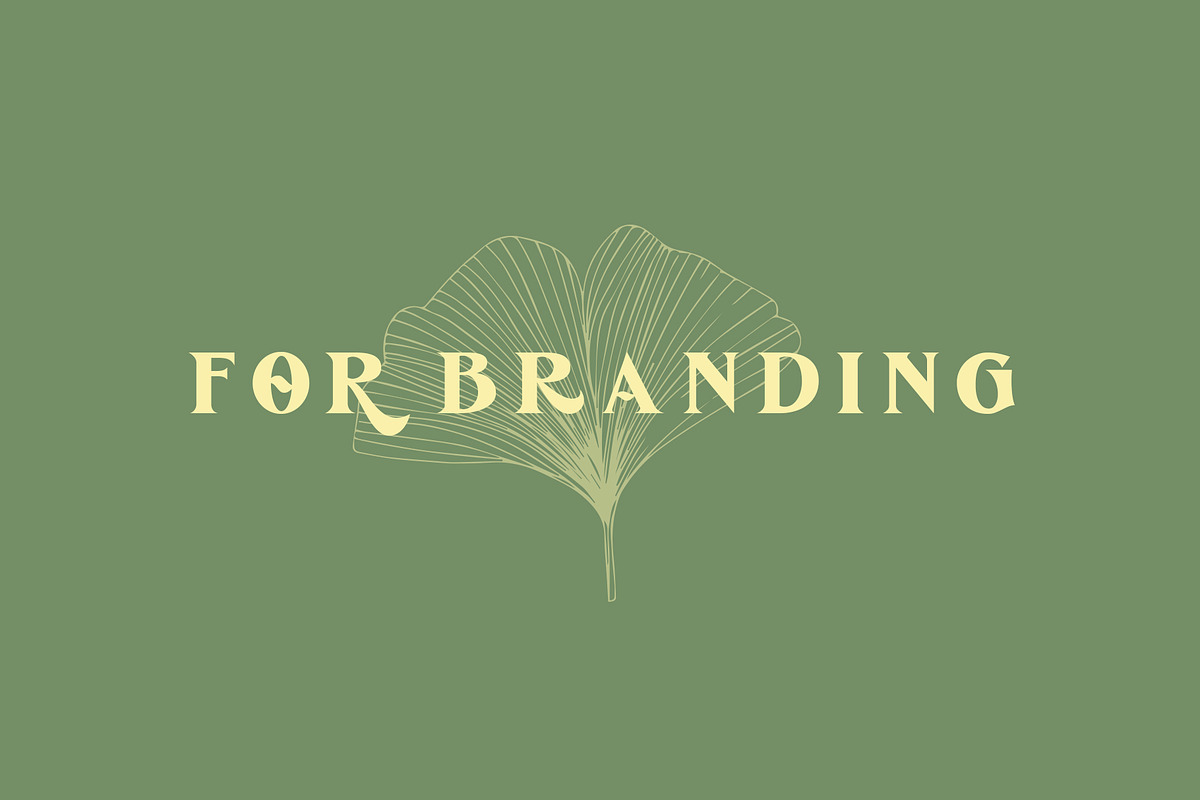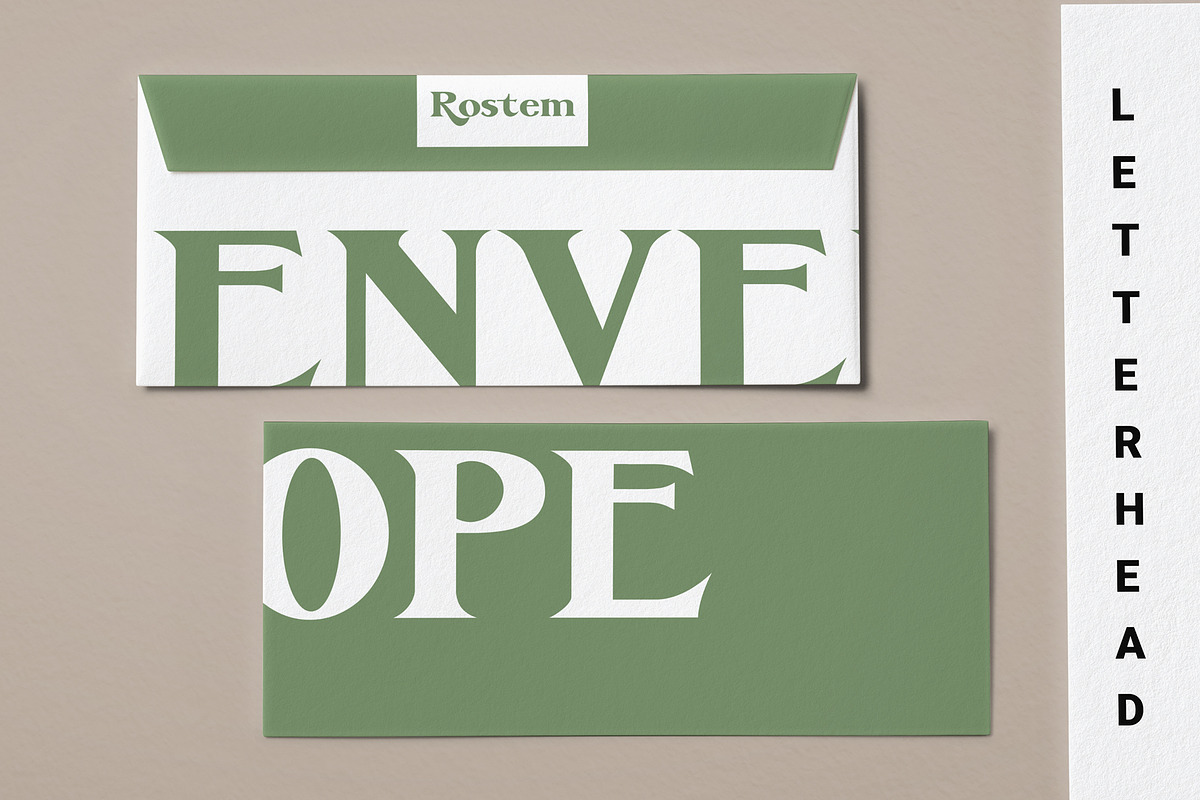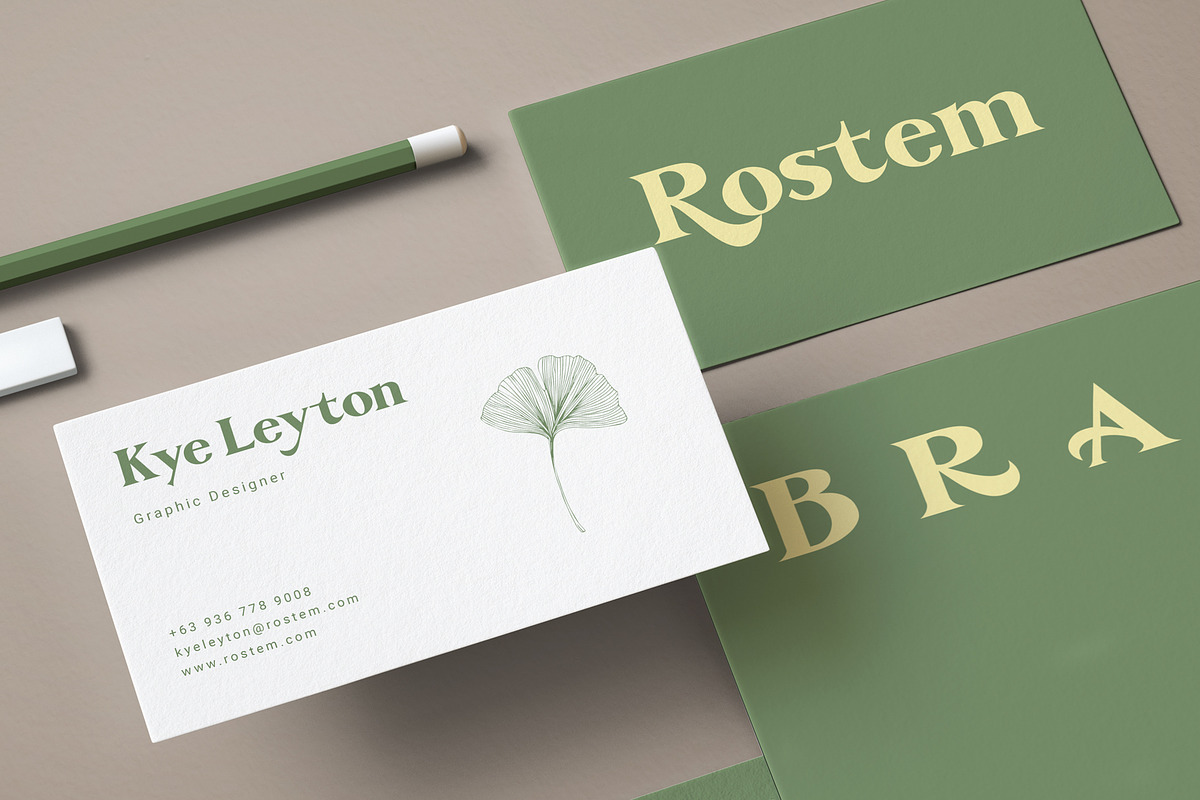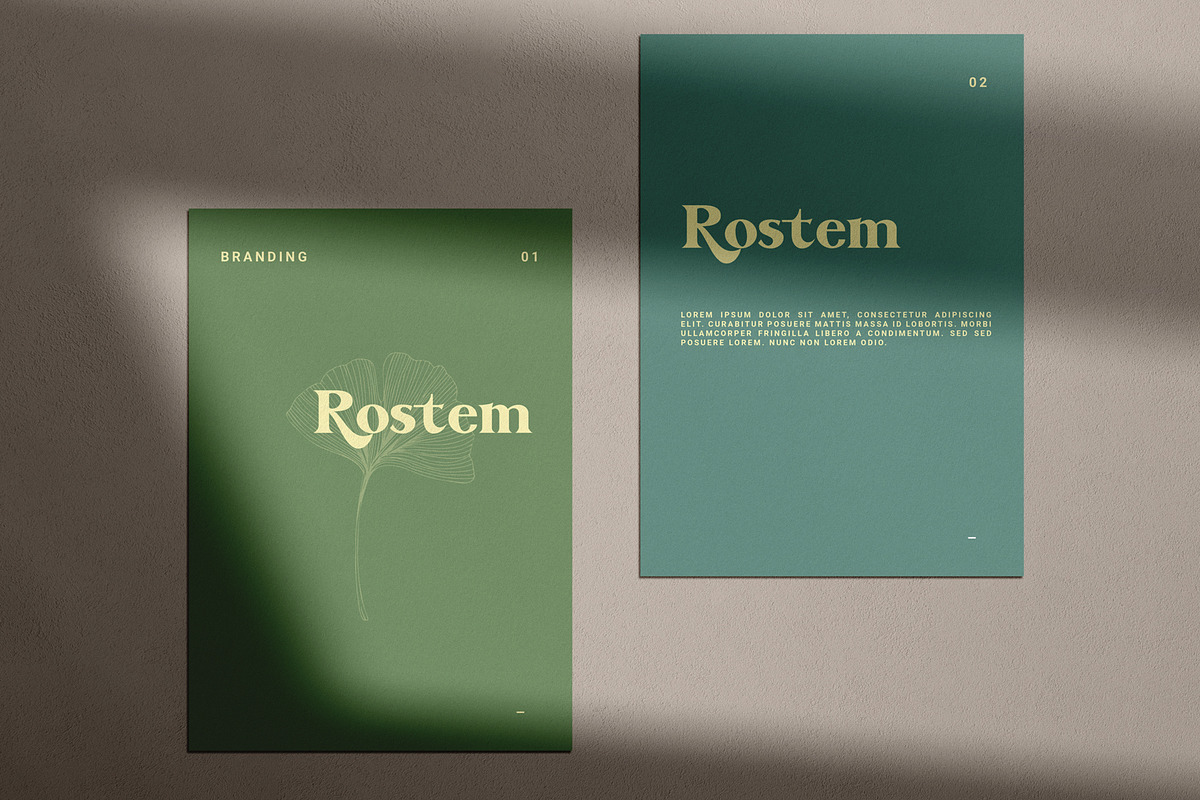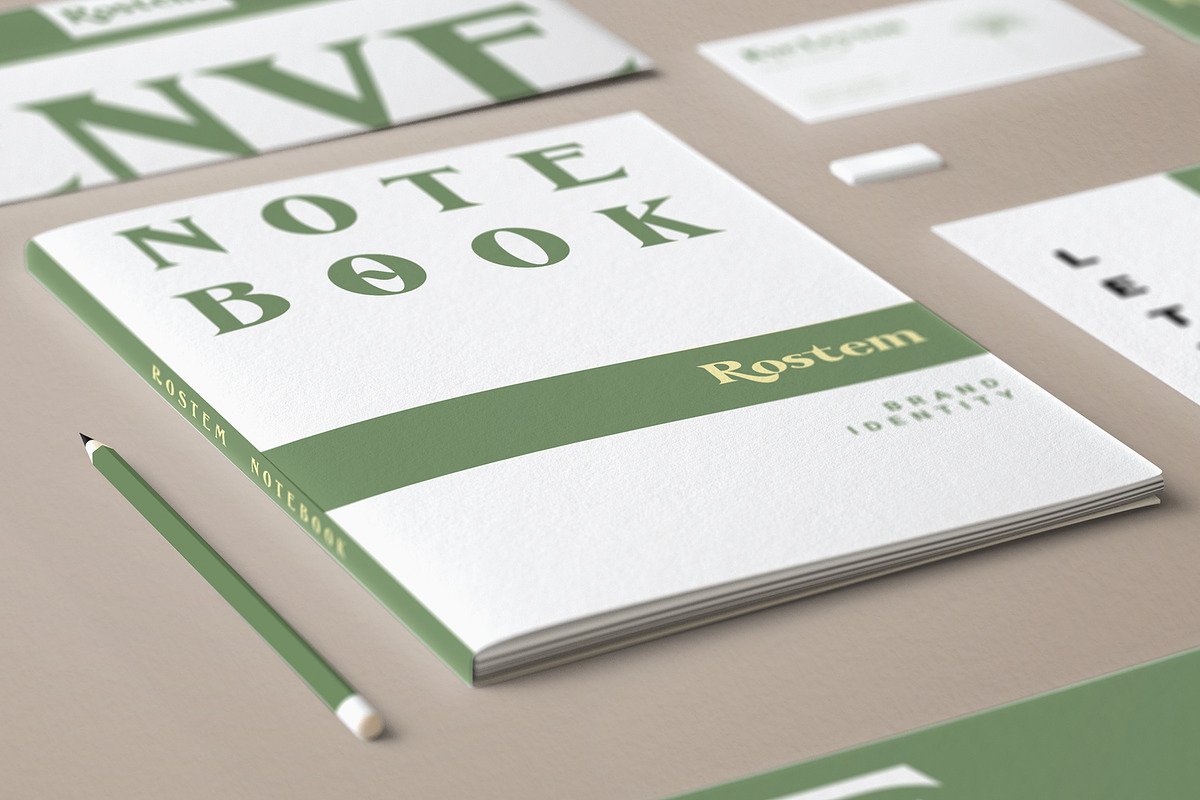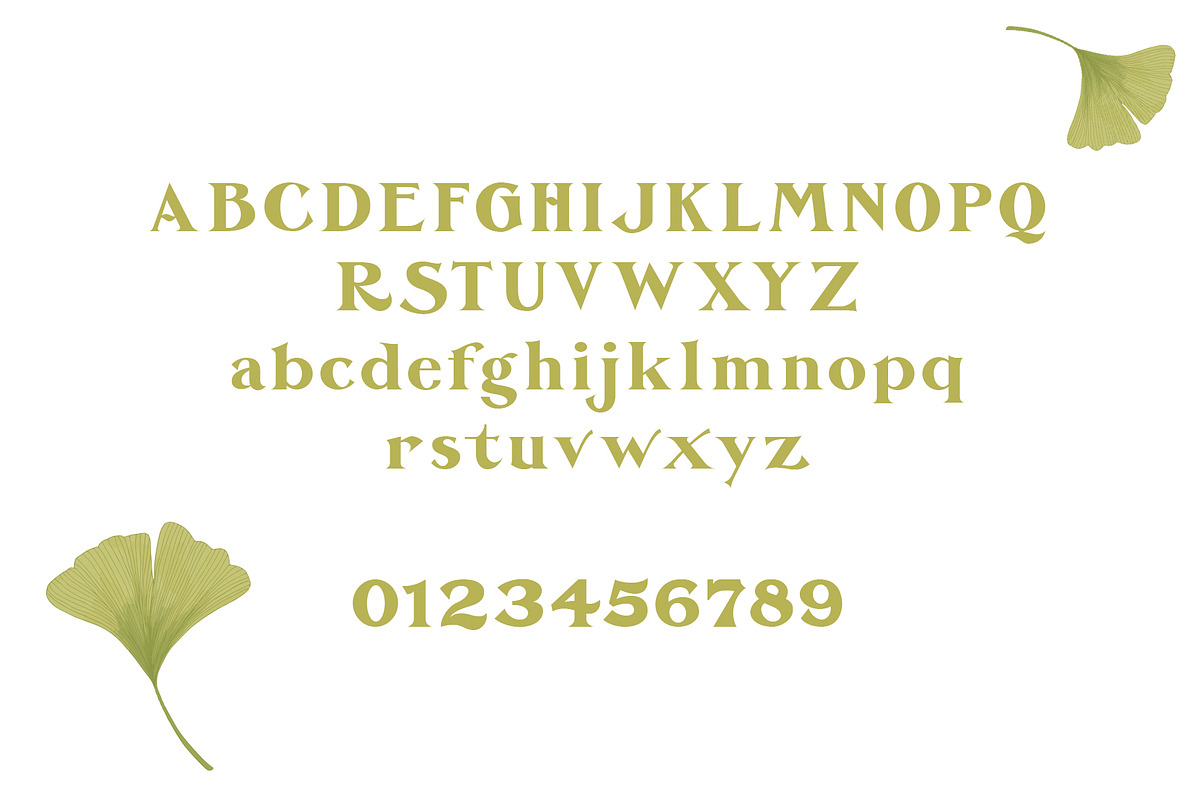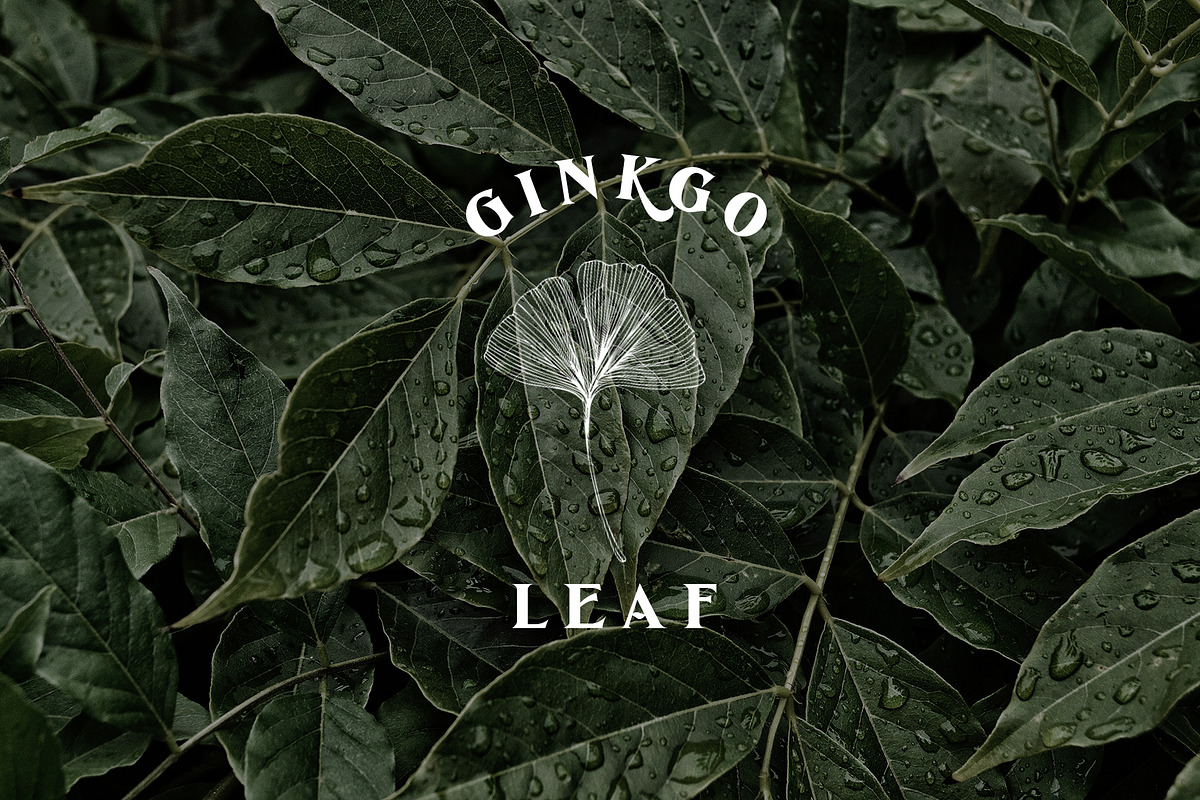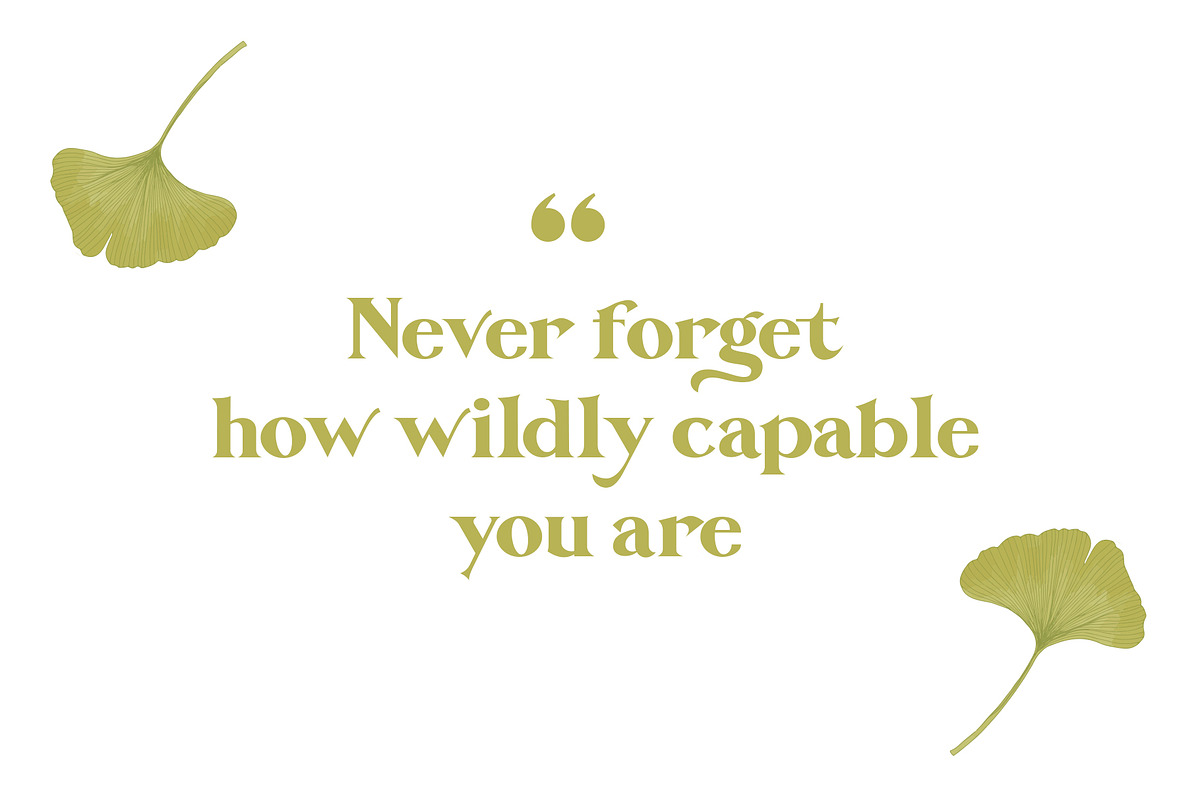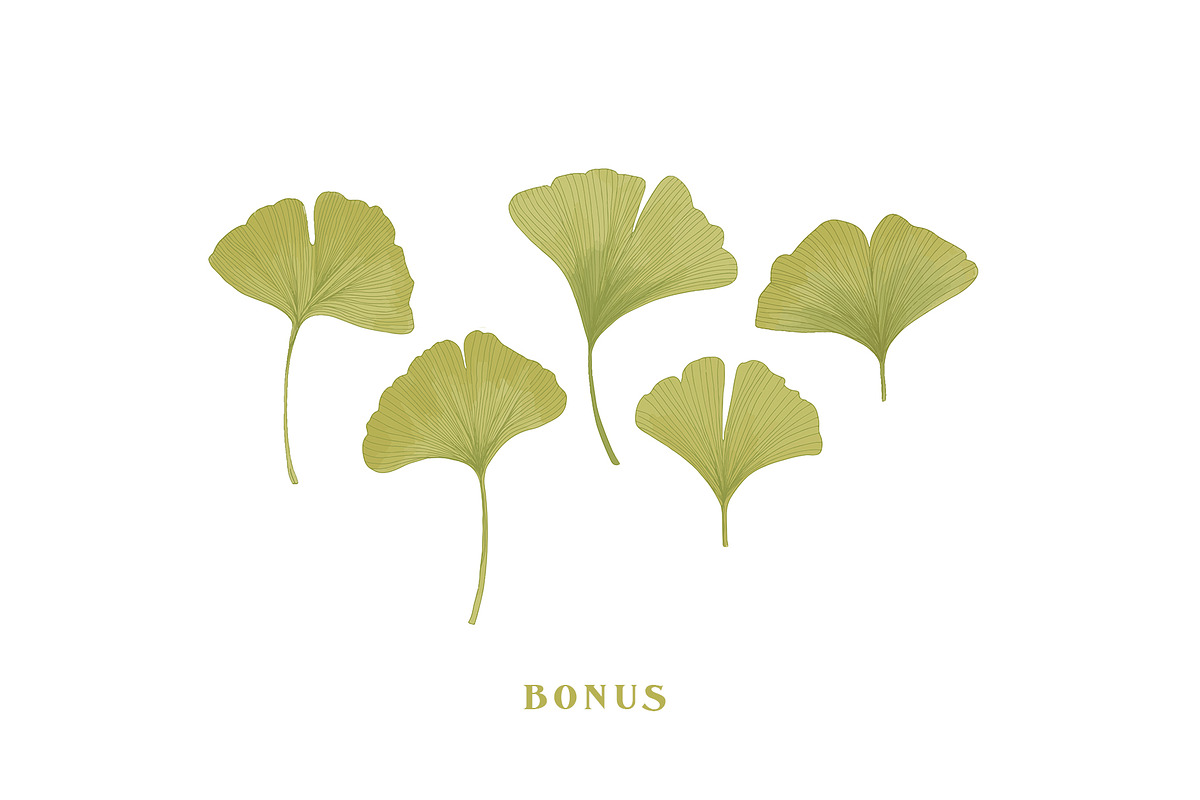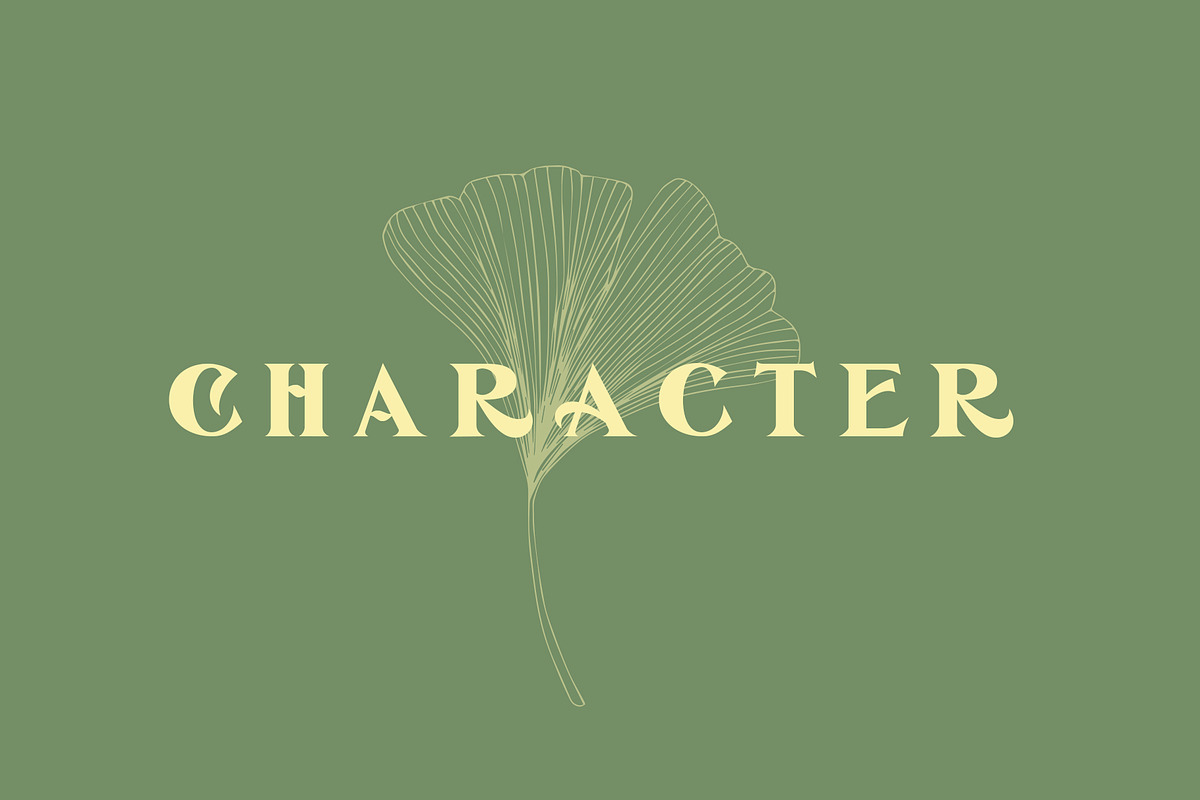
De Ginkgo
De Ginkgo is an elegant, classy serif display font. which is equipped with alternative characters and ligature to make a good font selection. This font is suitable for your graphic design needs such as branding, logo design, posters, social media posts, etc.
- Alternative character
- multi language support